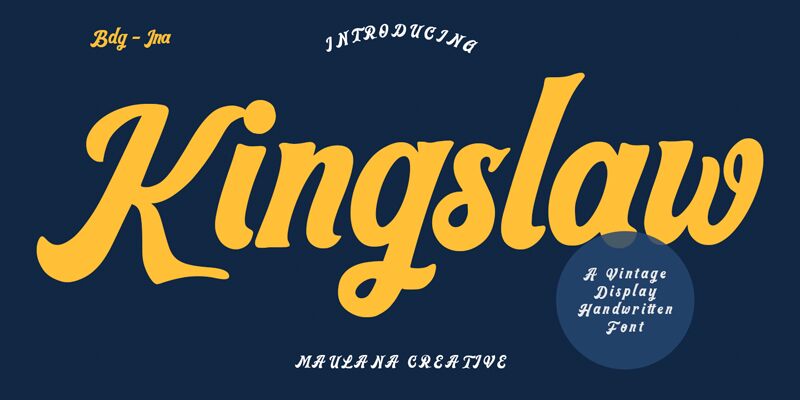
Kingslaw Free Regular
Kingslaw, a vintage display handwritten font by Maulana Creative, exudes an air of timeless charm and boldness. Its meticulously crafted strokes and impeccable balance make it a perfect choice for various creative projects. The bold weight adds a touch of authority, making Kingslaw ideal for logo designs, branding materials, packaging, and signage. This versatile font effortlessly captures the essence of bygone eras while adding a modern twist to any project. Whether you're aiming for a retro vibe or seeking to evoke nostalgia, Kingslaw is your go-to font for stunning visual storytelling.